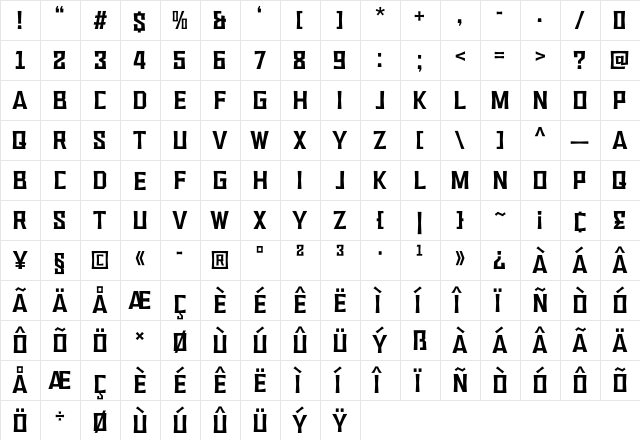
VEMBAZAX RM Regular
| Designer | HIRO.std |
Design Context for VEMBAZAX RM Typeface
VEMBAZAX RM takes a measured approach to typography — its balanced proportions and neutral character make it a reliable workhorse for both digital and print work.